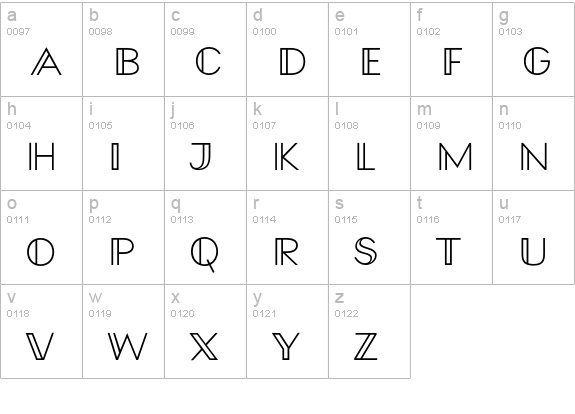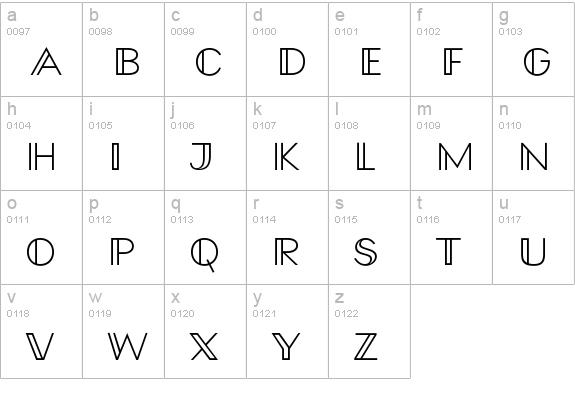
SpecialAlphabetsP04 Font Details
SpecialAlphabetsP04 font is a unique and eye-catching typeface that is perfect for adding a touch of creativity to your designs. With its intricate and detailed letterforms, this font is sure to make a statement and capture attention. This font features a collection of special alphabet characters that are beautifully designed with a combination of curves and angles. Each letter has been meticulously crafted to ensure a harmonious balance between elegance and readability. Whether you are designing a logo, creating a poster, or crafting a typography-based artwork, SpecialAlphabetsP04 font will effortlessly elevate your project to new heights. Its versatility allows it to be used in various design styles, from modern and minimalist to bold and expressive. And the best part? SpecialAlphabetsP04 font is available for free! You can easily download this font at FontsMarket.com, a trusted source for high-quality fonts. With just a few clicks, you can enhance your designs with this stunning typeface without breaking the bank. So why wait? Take advantage of the free availability of SpecialAlphabetsP04 font and explore the endless possibilities it offers. Whether you are a professional designer or a hobbyist, this font is sure to become a valuable addition to your font library. Download it today and let your creativity soar!